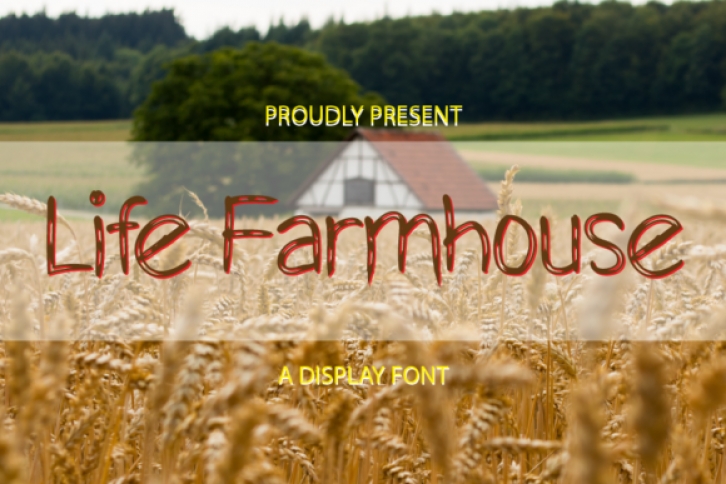
Life Farmhouse is a neat and simple lettered display font. It is suitable for any branding, product packaging, invitation, quote, t-shirt, label, poster, logo that you wish to develop.